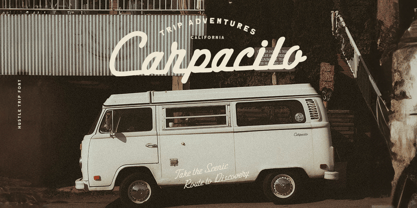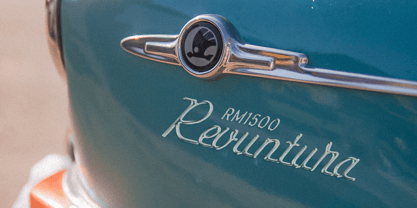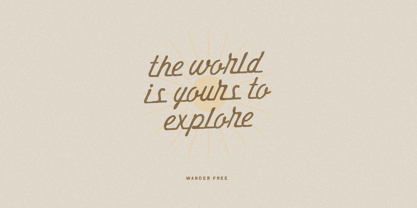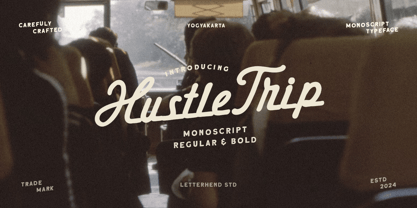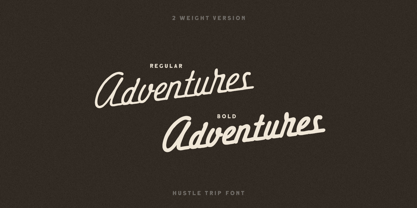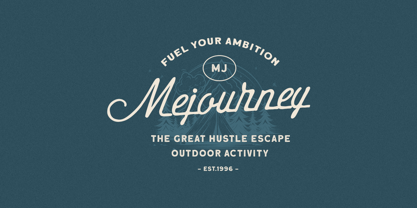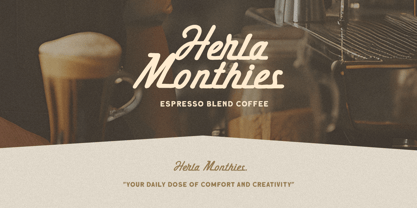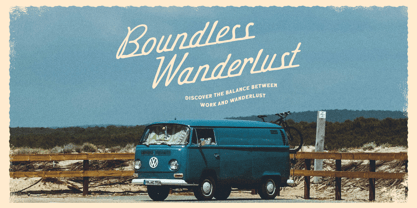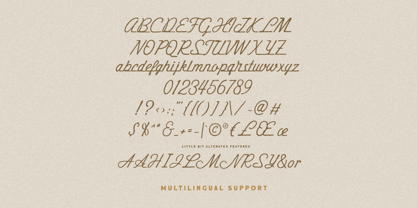
Hustle Trip Bold
by Letterhend
The Hustle Trip Bold Font Family was designed by Hendry Juanda and published by Letterhend. Hustle Trip Bold contains 2 styles and family package options. More about this family
Introducing Hustle Trip, a charming monoscript typeface that blends vintage nostalgia with modern versatility. Its smooth curves and dynamic strokes evoke the spirit of adventure, making it perfect for travel branding, lifestyle projects, or retro-inspired designs. With two weights—Regular and Bold—it adapts effortlessly to any creative need, from logos to posters and editorial layouts.
Carefully crafted with a timeless, handwritten feel, Hustle Trip adds warmth and character to your designs. Whether you’re aiming for a bold statement or subtle elegance, this typeface is your ticket to effortless style. Ready to bring your ideas to life?
Features :
• Uppercase & lowercase
• Numbers and standard punctuation
• Multilingual support
Designers: Hendry Juanda
Foundry: Letterhend